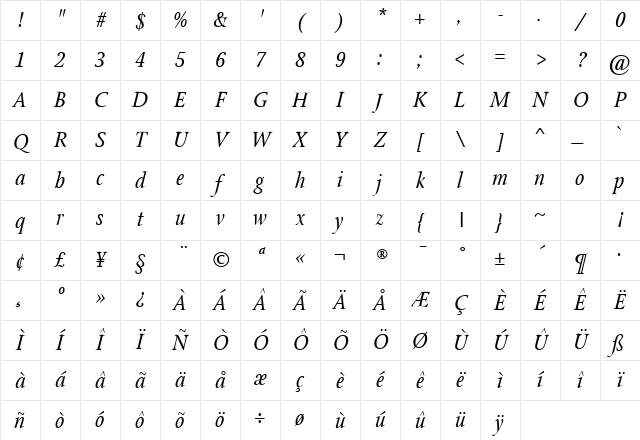
StonePrint Italic
StonePrint Family
Design Context for StonePrint
StonePrint is a composed and adaptable typeface that performs quietly and consistently across a wide range of design contexts. The slanted form adds forward momentum and visual energy.
Pro Tip: Use StonePrint for emphasis, pull quotes, and subheadings where its slanted energy can add rhythm to the layout.